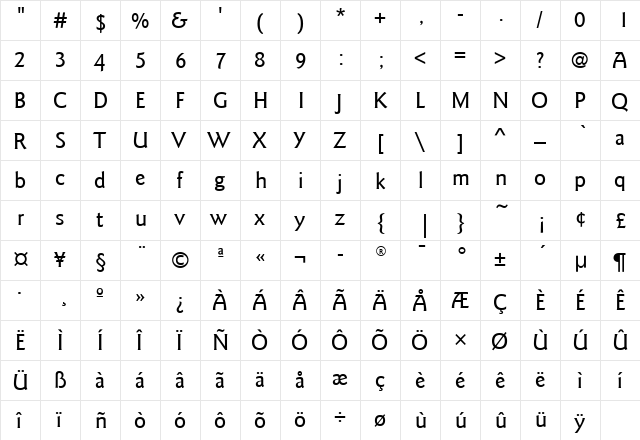
GoudySansMdITC Medium Font Preview
GoudySansMdITC Medium
GoudySansMdITC Medium Font Details
Design Context for GoudySansMdITC Typeface
GoudySansMdITC takes a measured approach to typography — its balanced proportions and neutral character make it a reliable workhorse for both digital and print work.